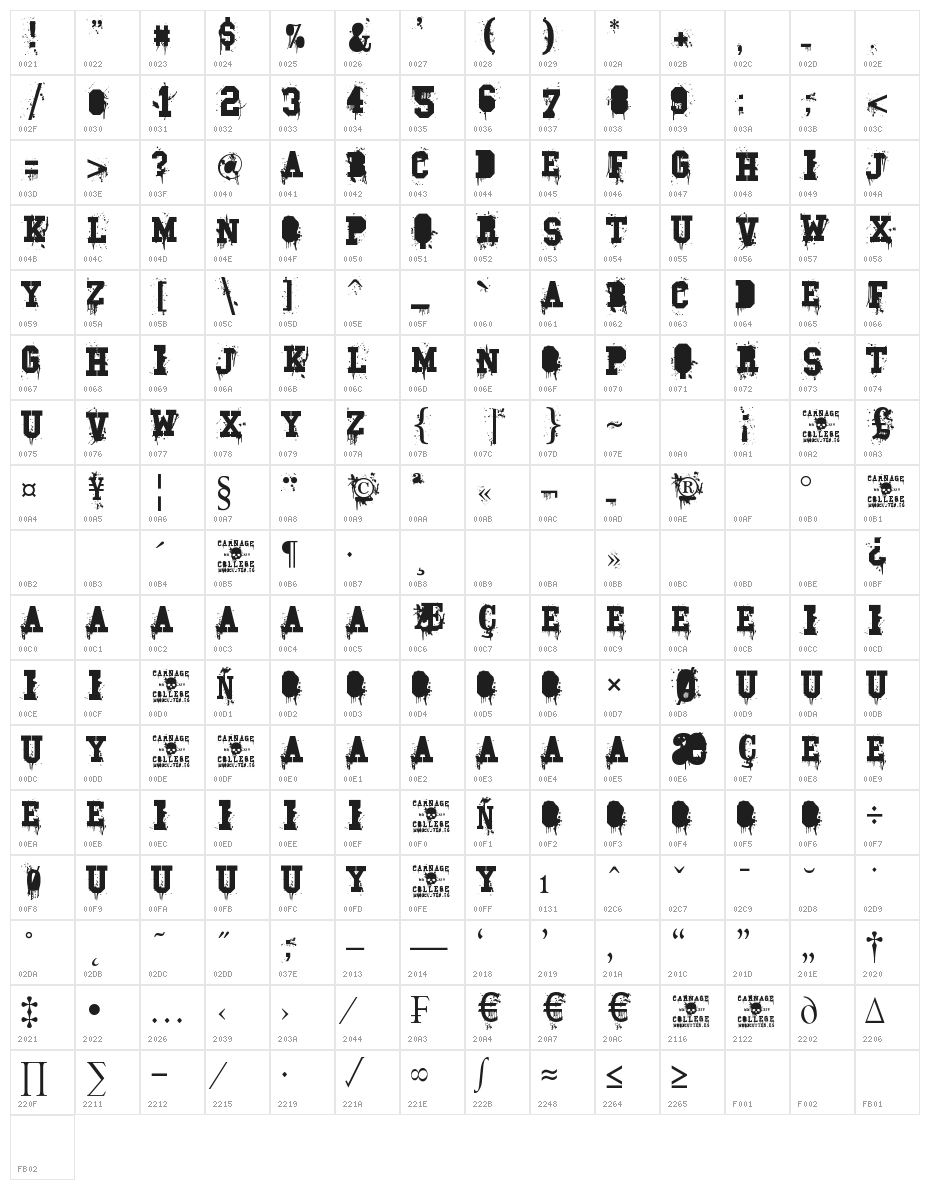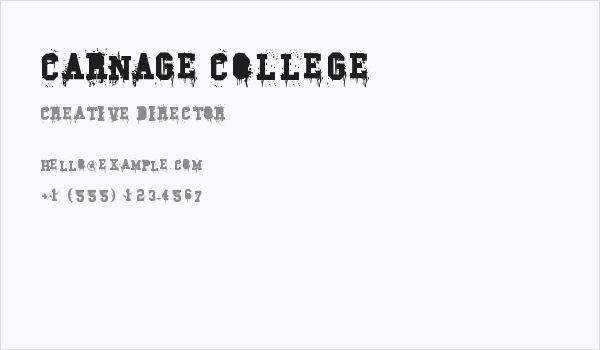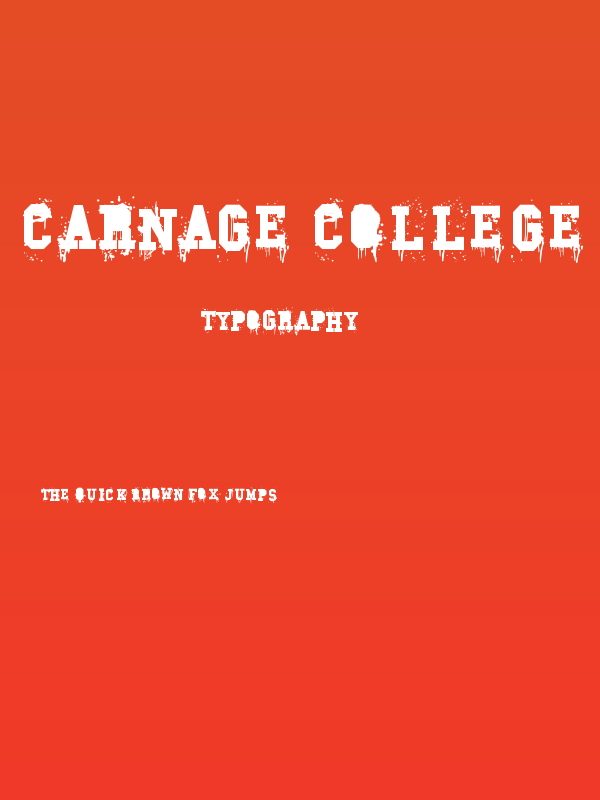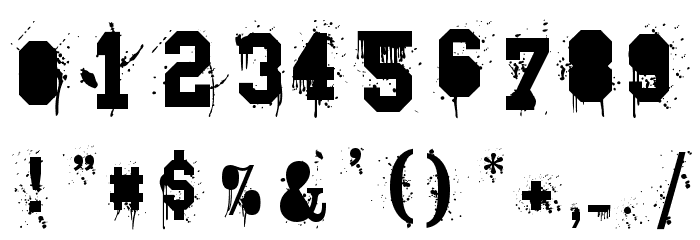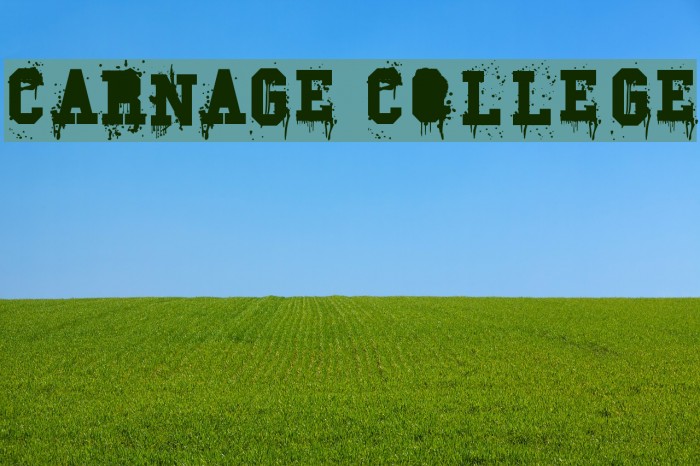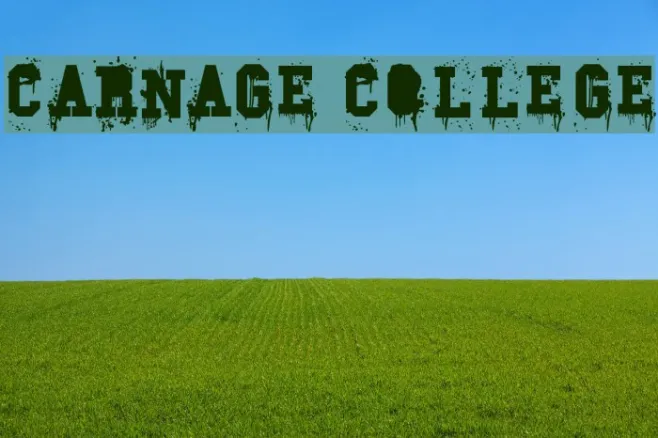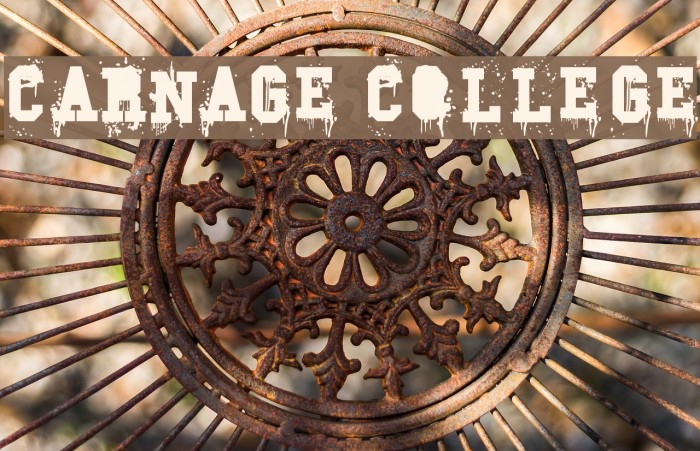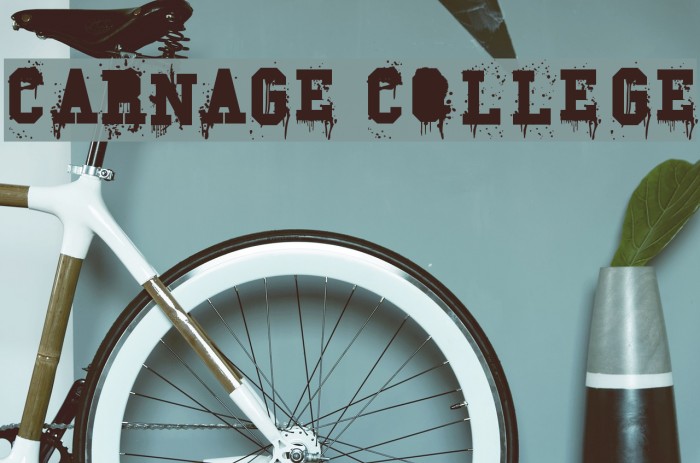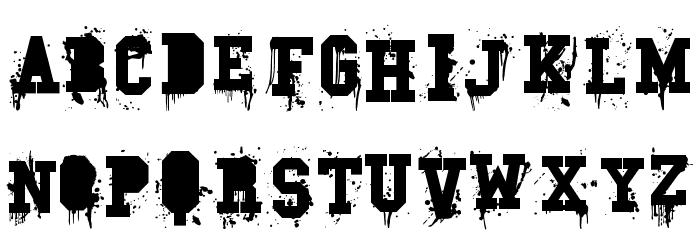
Carnage College Font
Carnage College Description
This font features a bold, distressed style with a grunge aesthetic. The characters are heavily textured, resembling splatters and drips, which gives them a raw and edgy appearance. The uppercase letters are prominent and impactful, making a strong visual statement. The numbers and special characters follow the same distressed theme, ensuring consistency across all glyphs. This font is ideal for projects that require a rugged, rebellious look, such as music album covers, posters, or video game graphics.
| Overall Style | Grunge, Edgy, Distressed |
| Proposed Projects | Ideal for music album covers, posters, video game graphics, and edgy branding. |